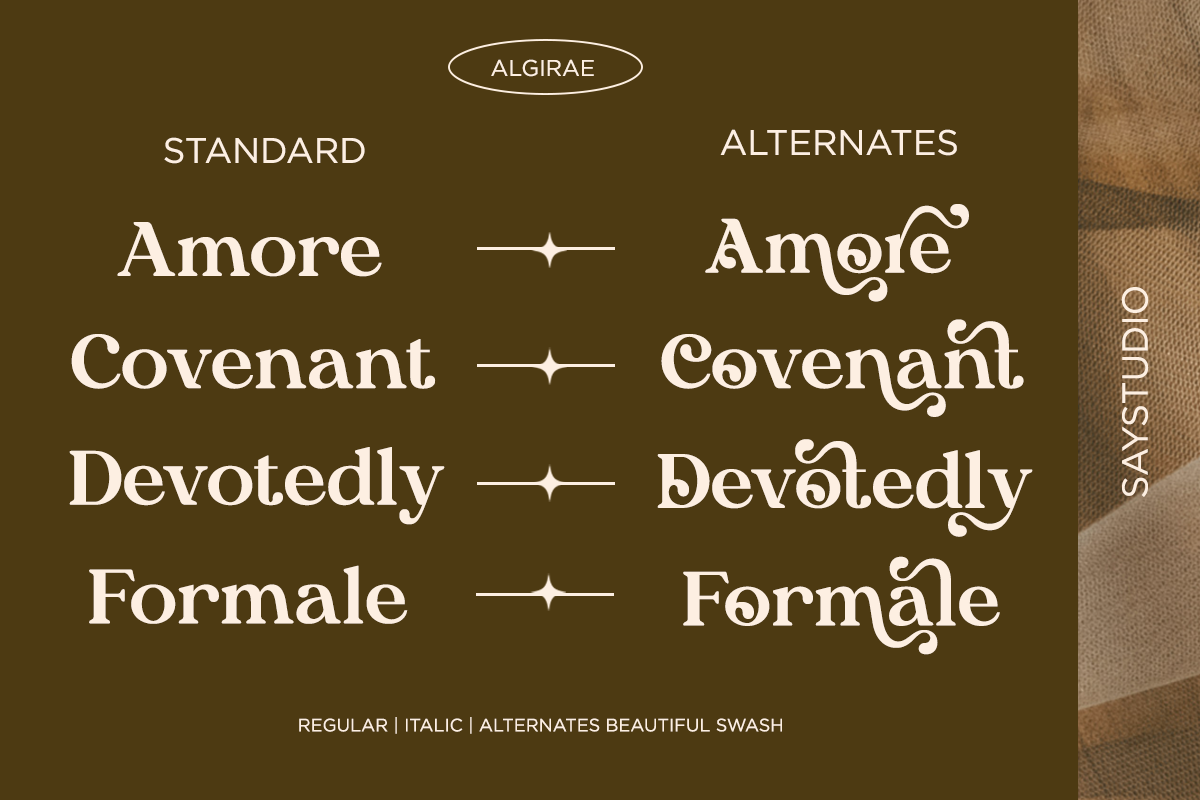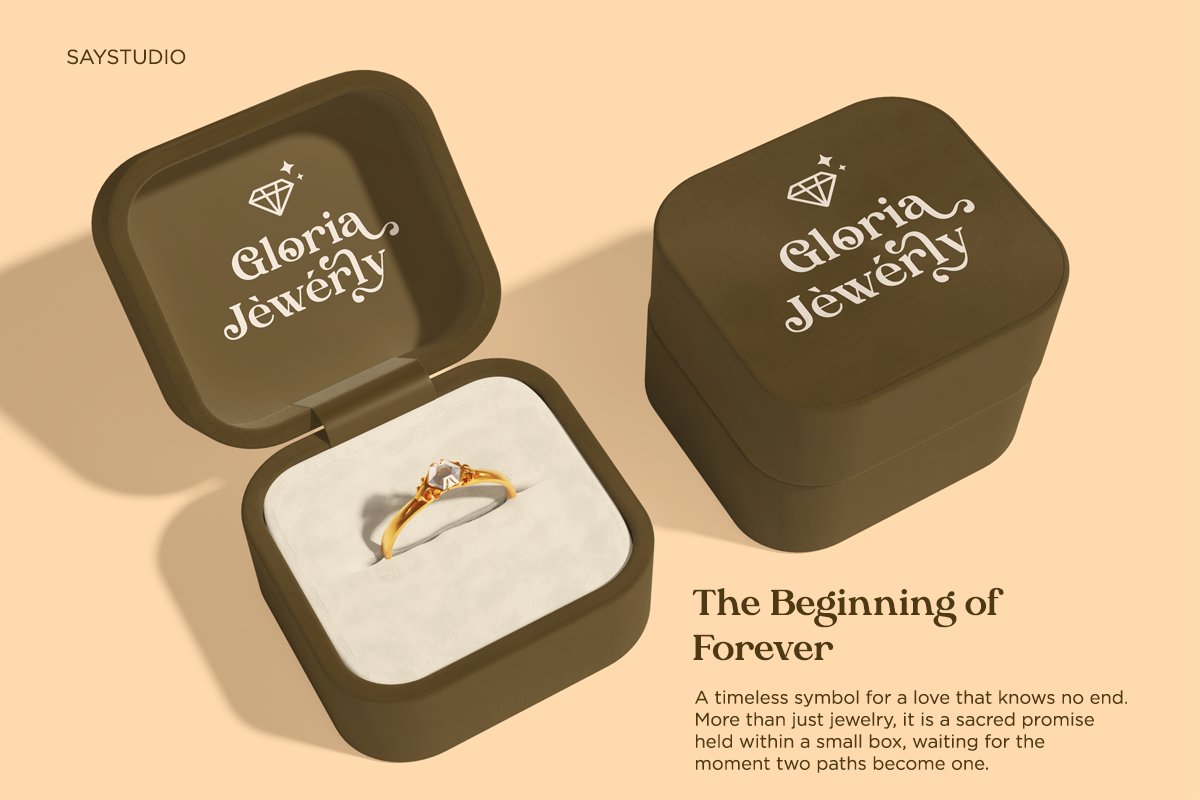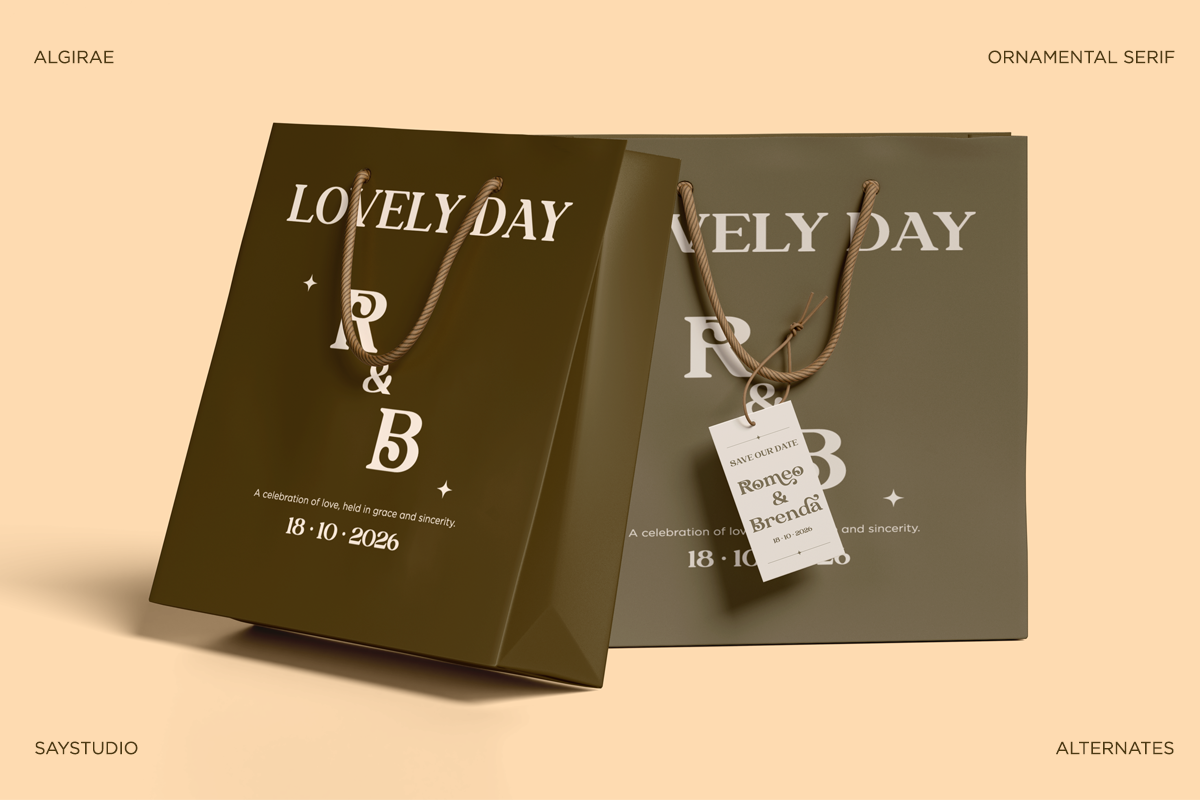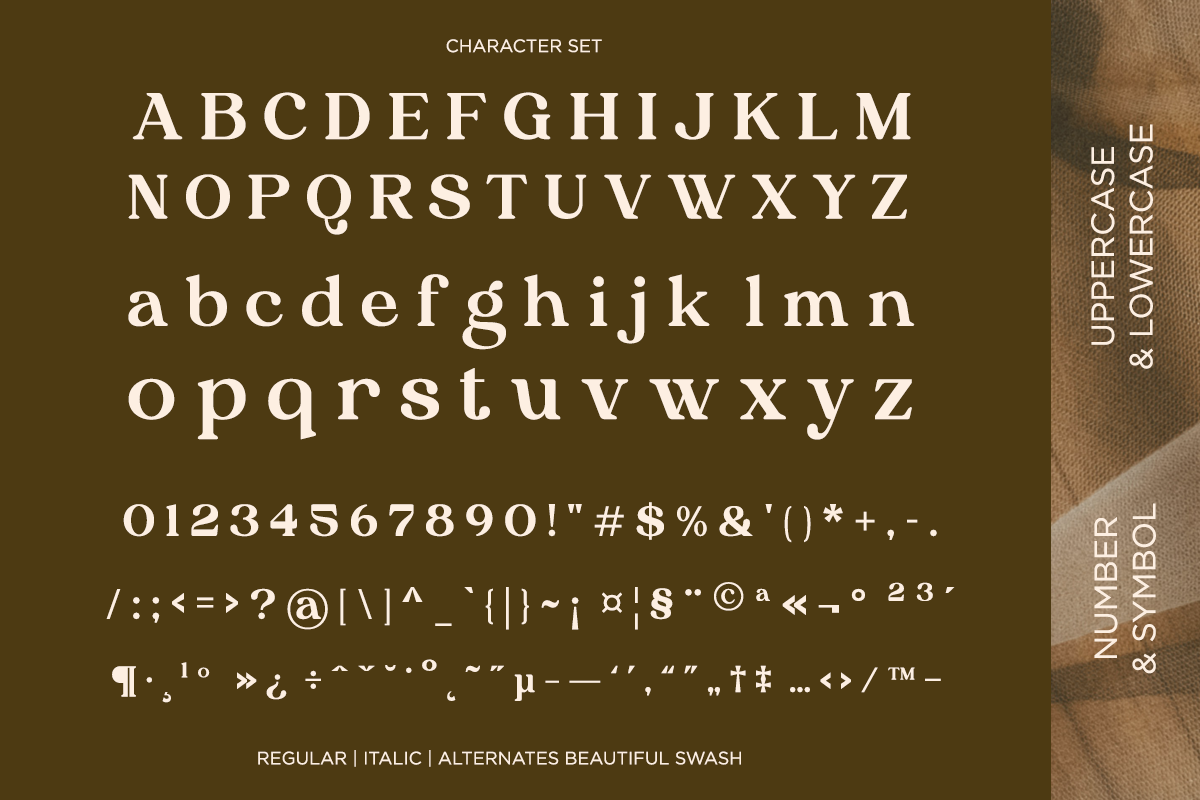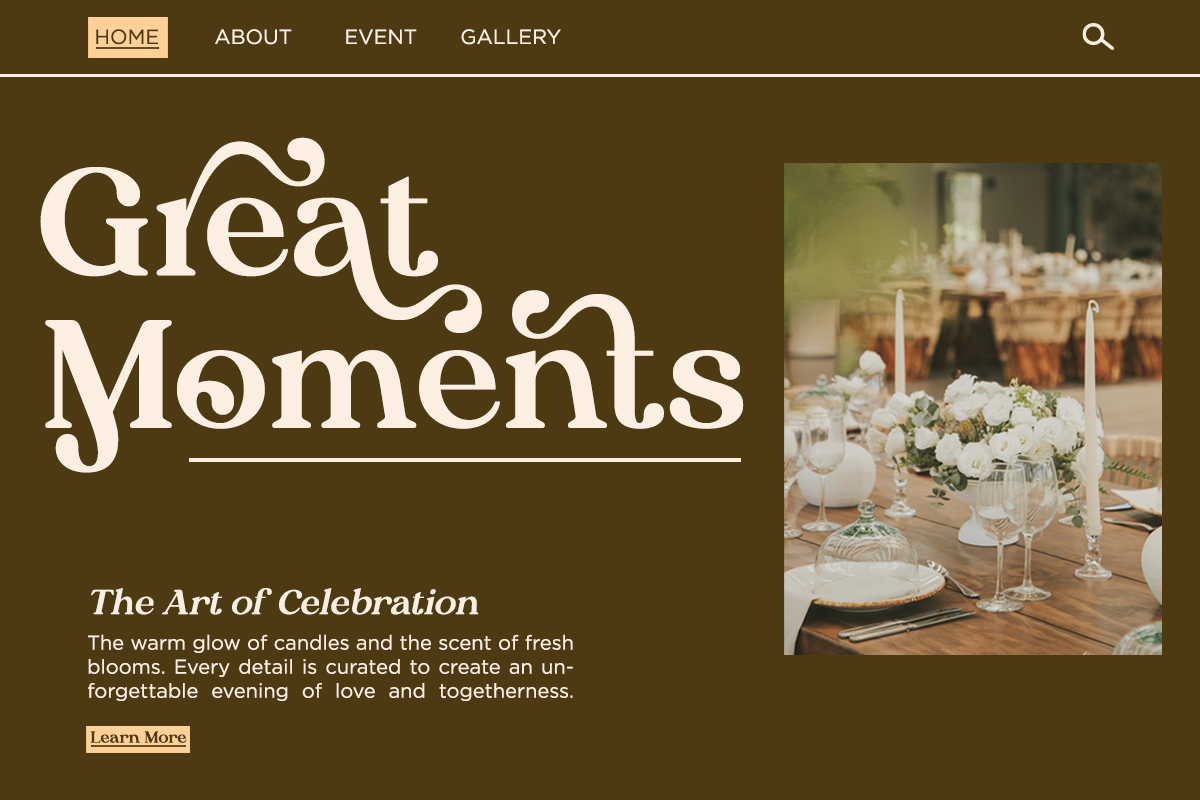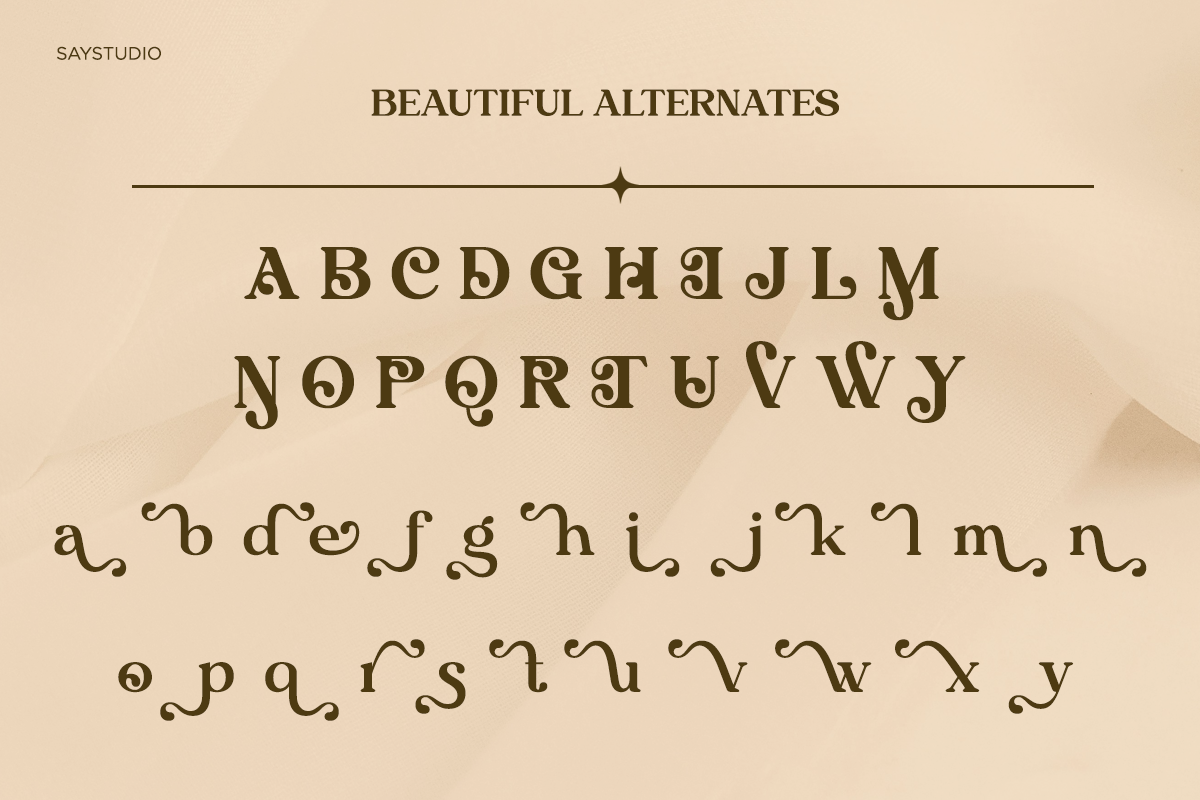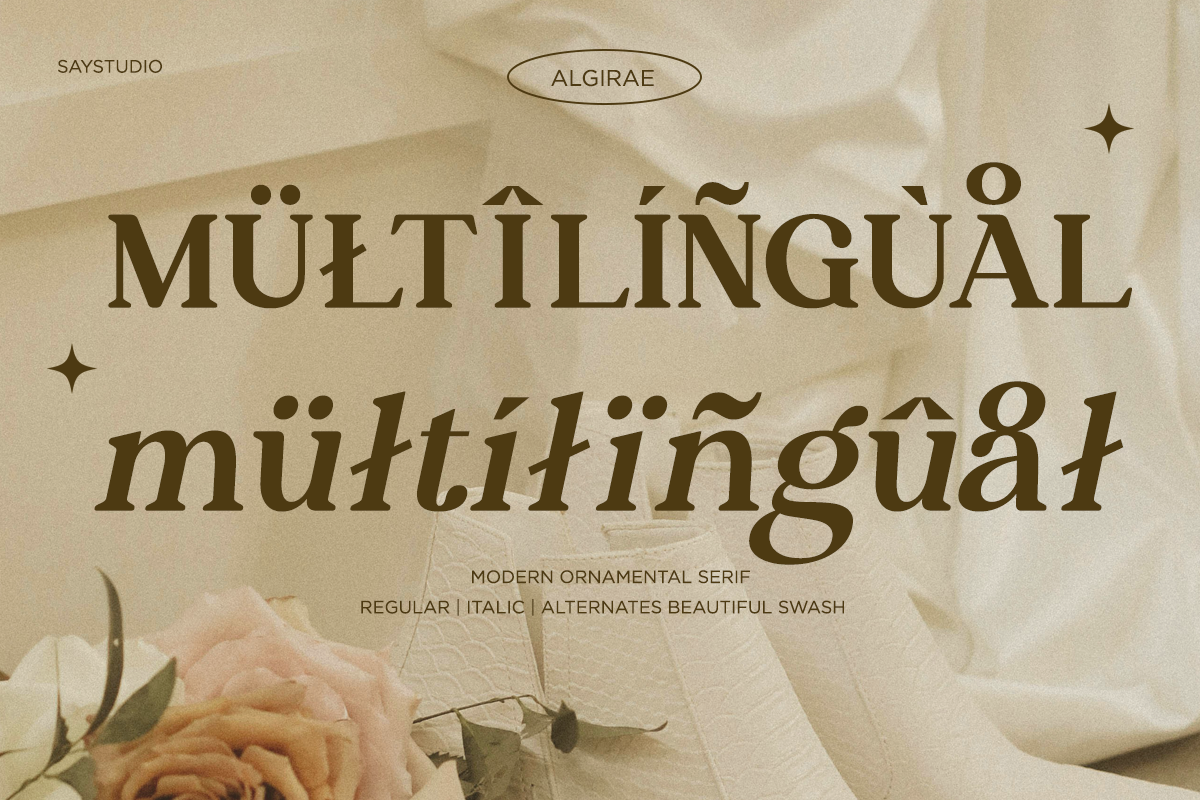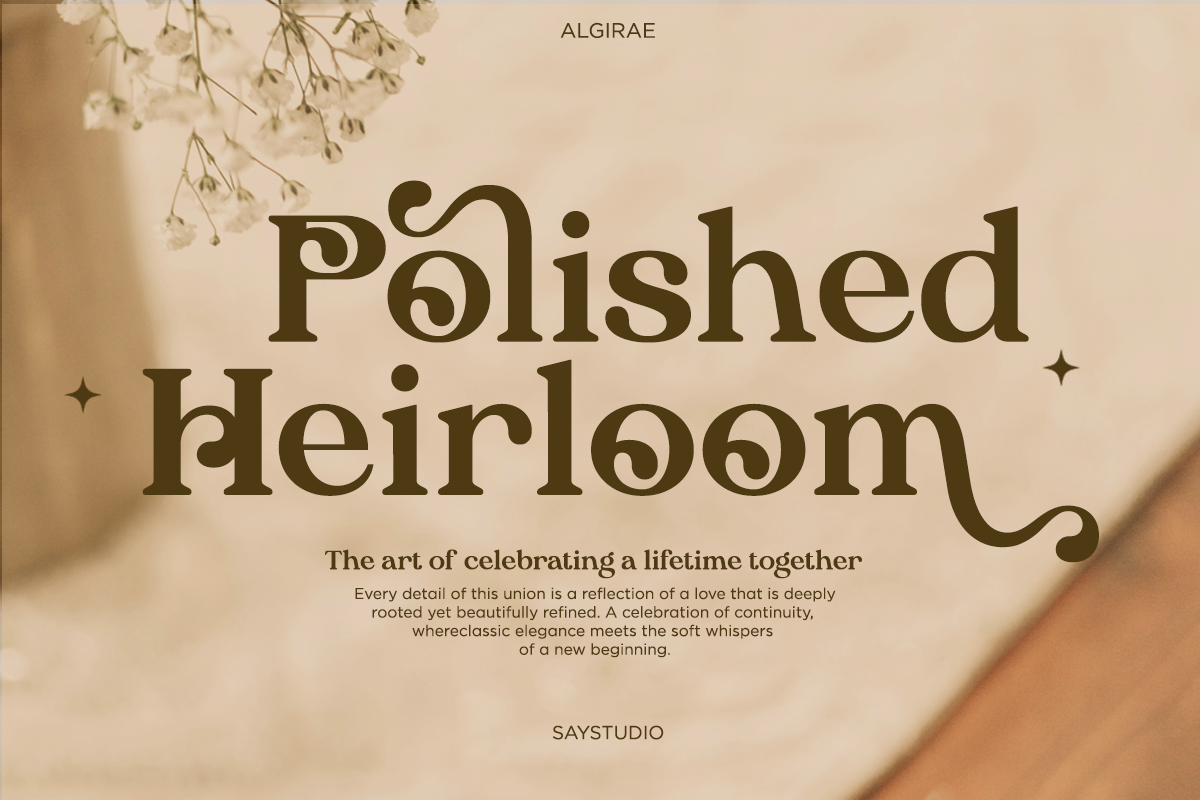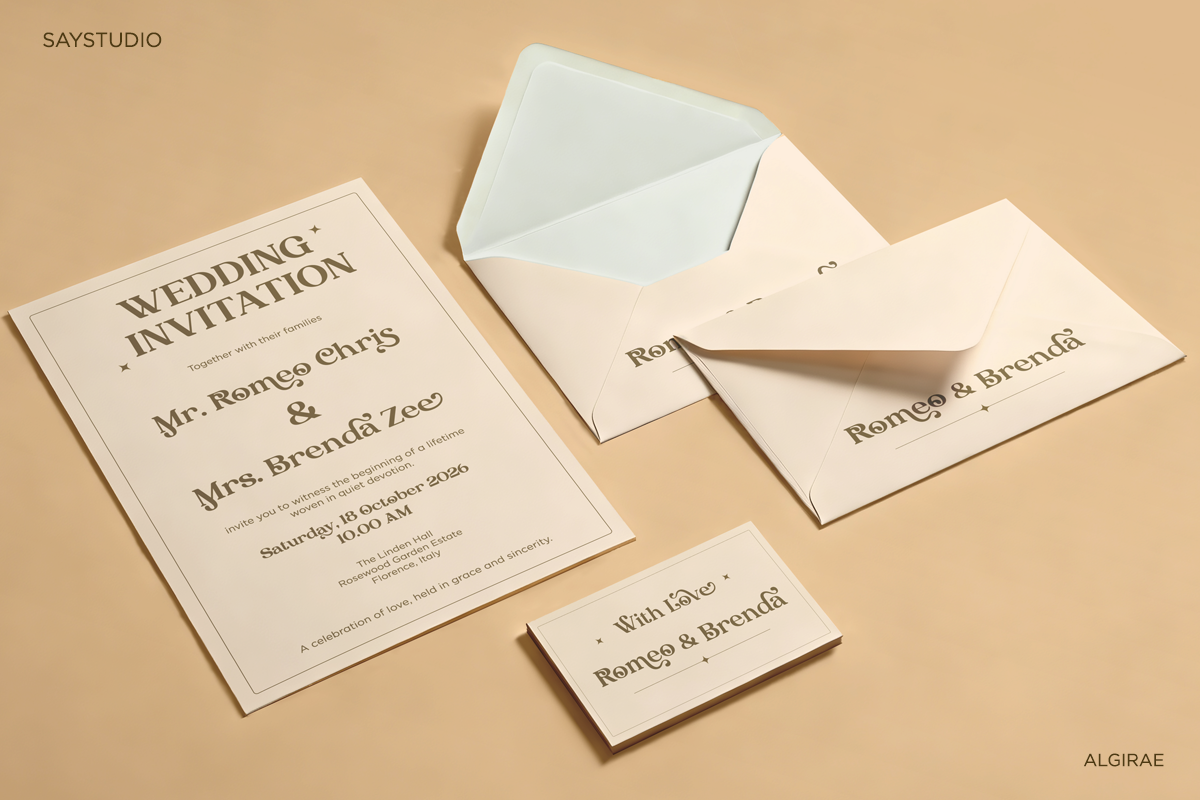
Algirae - Modern Ornamental Serif
Algirae is a modern ornamental serif typeface designed to bring elegance, charm, and refined beauty into your typography. Featuring graceful curves, decorative details, and beautifully crafted swashes, Algirae blends classic serif sophistication with a fresh modern aesthetic.
This typeface is enriched with stylish alternates and expressive swash characters, allowing designers to create unique and eye-catching compositions. Its smooth contrast and elegant letterforms make Algirae perfect for creating a luxurious and romantic visual tone without sacrificing readability.
Algirae works beautifully for wedding designs, fashion branding, beauty products, editorial layouts, feminine logos, packaging, and elegant social media visuals. Whether used for headlines, logos, invitations, or premium branding projects, Algirae adds a graceful and artistic presence to every design.
Designed for creatives who value detail and elegance, Algirae transforms typography into a refined visual statement.